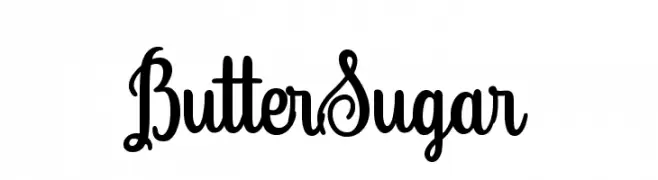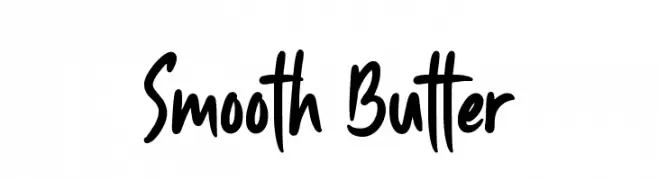
A lively, handwritten-style font with dynamic strokes and a casual vibe.
A bold and playful script font with decorative flourishes and smooth curves.
A playful and whimsical font with elaborate curls and loops.
An elegant, flowing script font with a handwritten feel, perfect for sophisticated projects.
A graceful script font with fluid, cursive strokes and elegant flourishes.
A dynamic brush script font with expressive, flowing strokes.
A bold, italic, handwritten font with rounded edges and a playful style.
A whimsical script font with playful loops and heart motifs.
A bold, handwritten font with a playful and energetic style.
A playful, handwritten font with smooth, flowing lines and a whimsical flair.